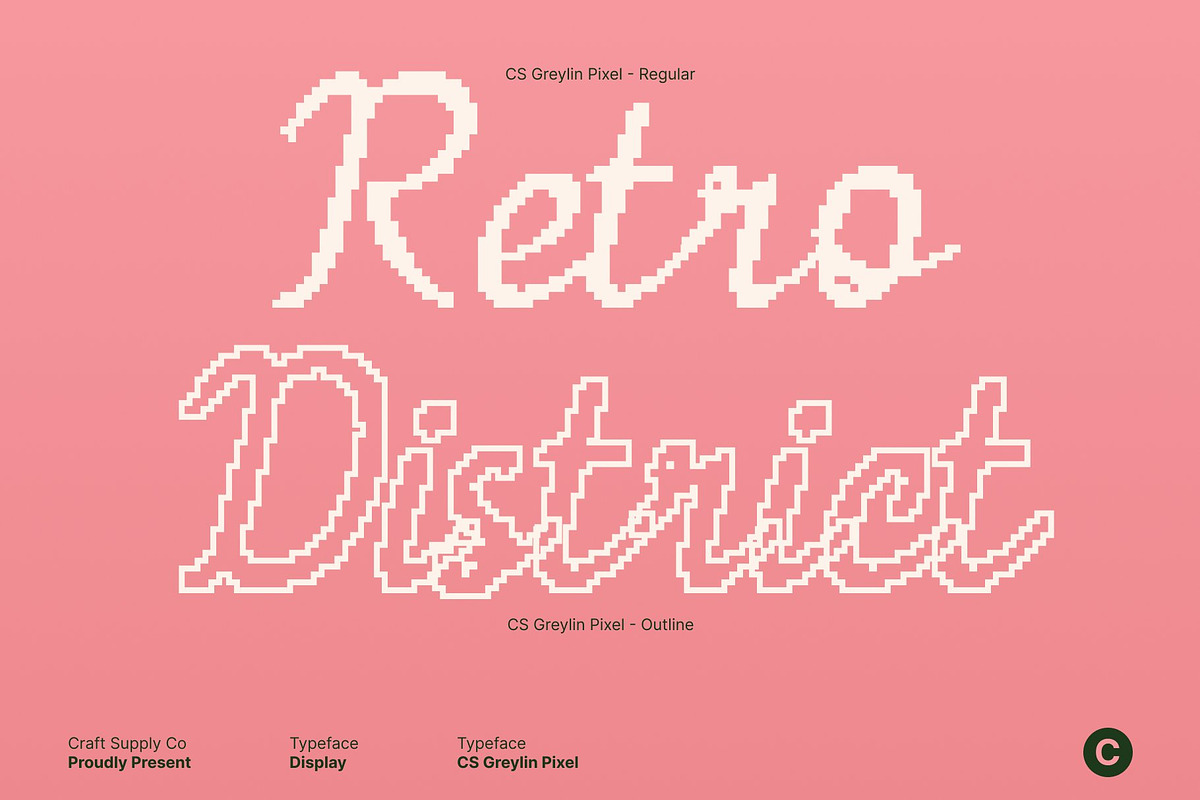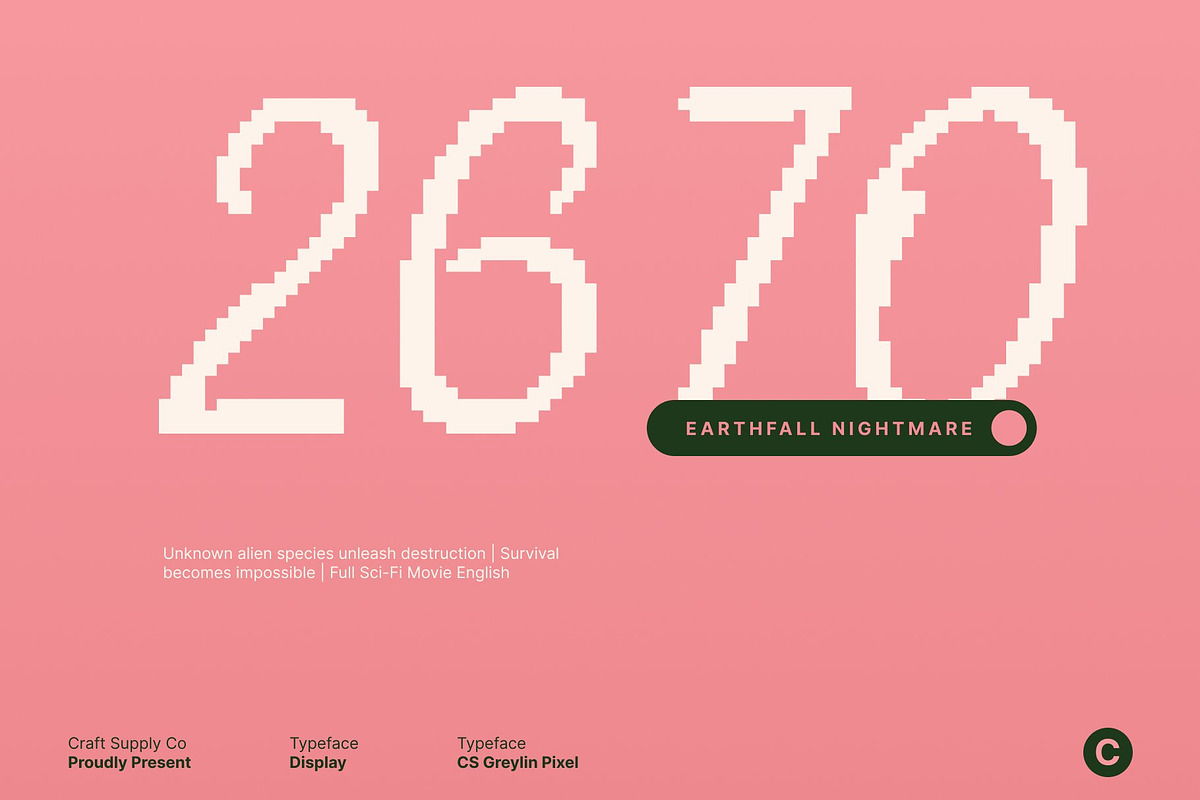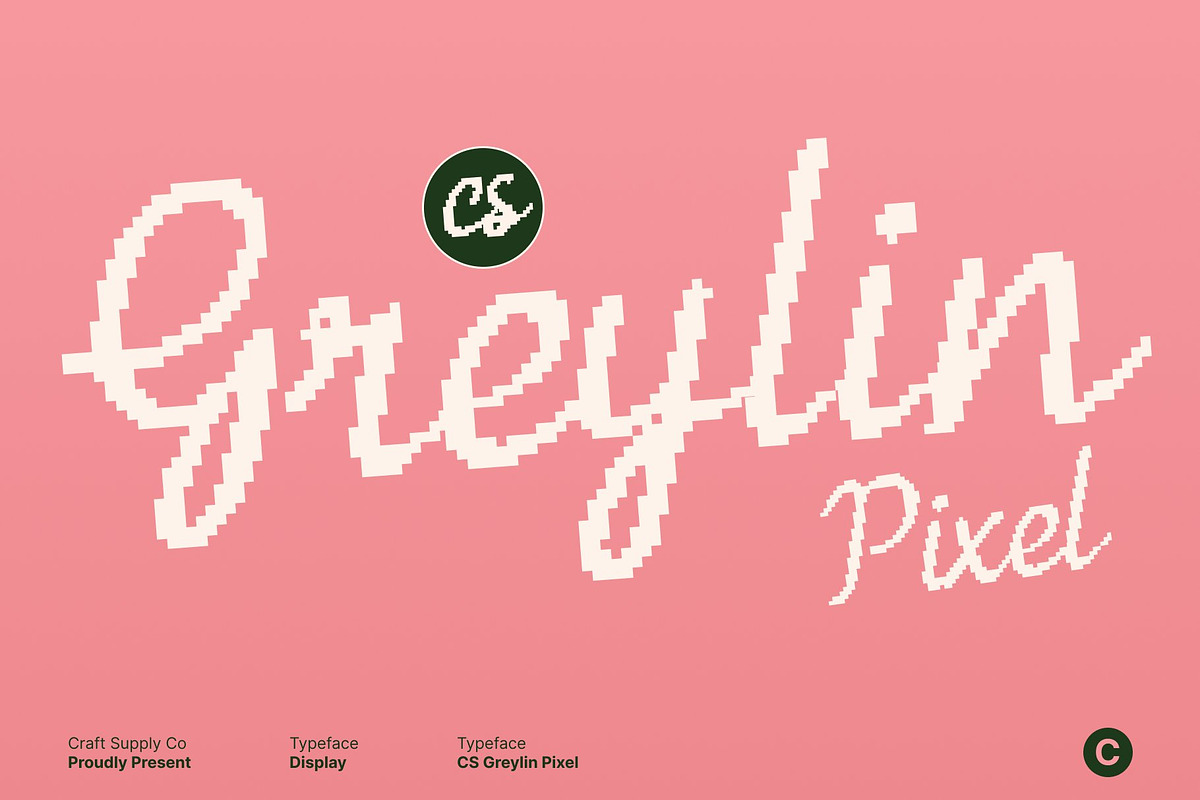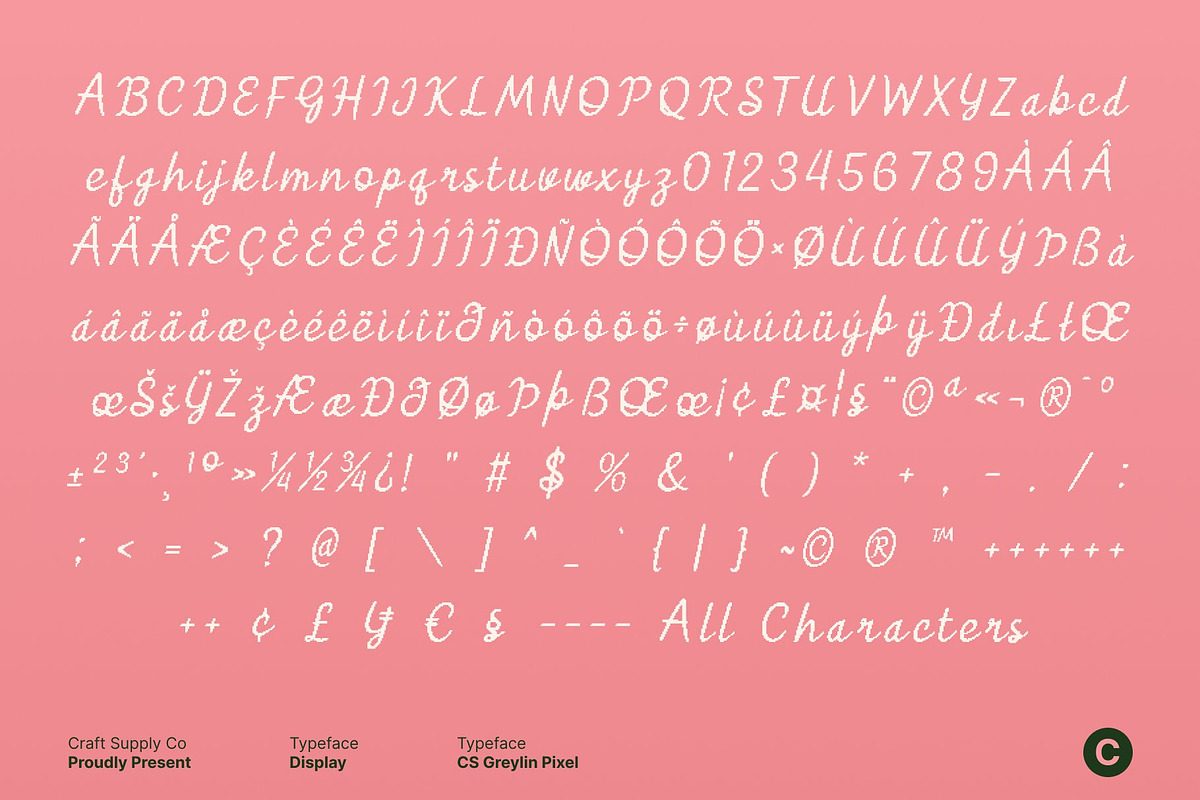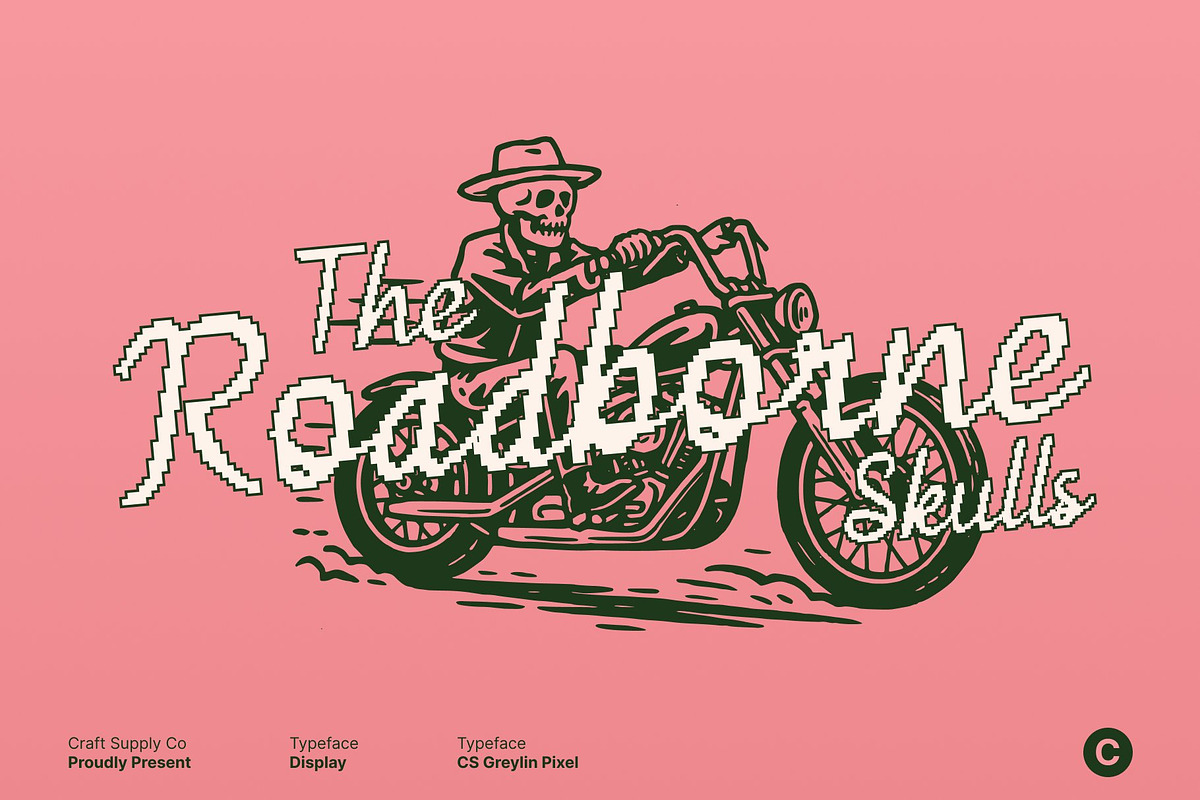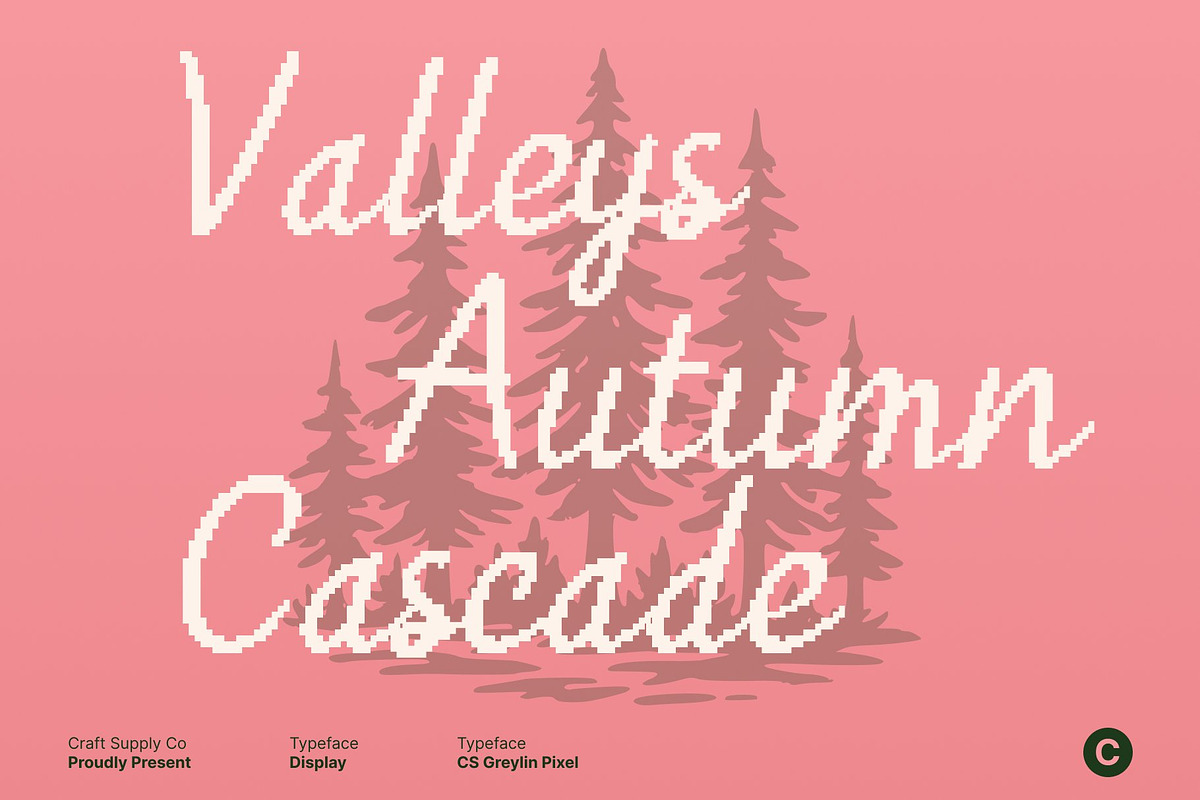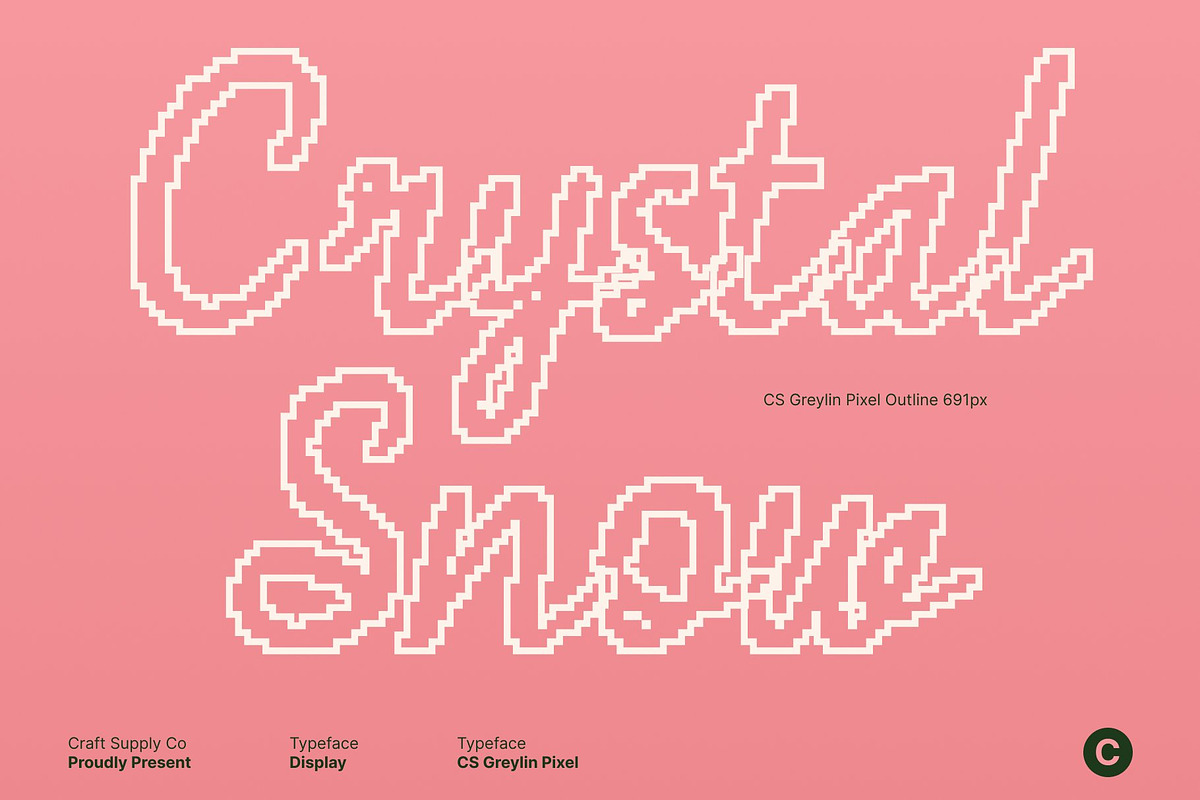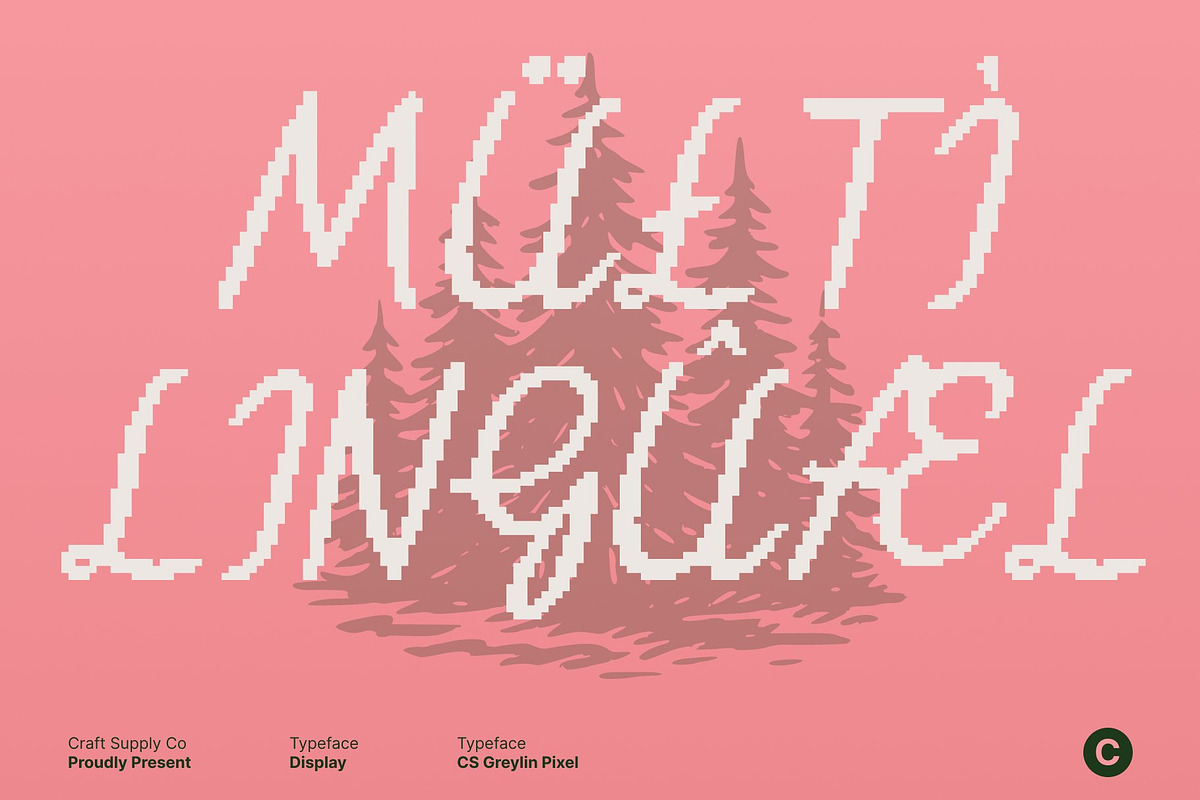
CS Greylin Pixel
CS Greylin Pixel – Elegant Script with Retro Charm and Digital Pixel Flair
Timeless Script Elegance with a Modern Twist This is a classic script font that blends graceful, flowing strokes with the sharp charisma of pixel-inspired detailing. Designed to evoke charm and nostalgia, this typeface carries the decorative flourishes and handcrafted elegance of vintage lettering. The addition of pixel texture brings an unexpected modern edge, creating a unique fusion of old-fashioned beauty and contemporary digital style.
Retro Character for Nostalgic Appeal Crafted with expressive curves and traditional script artistry, this font embraces the warmth of retro design. Its charming letterforms make it an excellent choice for bar menus, retro posters, vintage logos, café branding, and nostalgic marketing materials.
Pixelated Detailing for a Digital Sharp Look The pixel effect introduces a fresh and bold twist, transforming the soft script flow into something more modern and striking. This digital texture enhances the font’s uniqueness, giving it a sharp edge that feels distinctly contemporary. Whether used in digital layouts or printed materials, the pixel styling makes this font stand out with a refined yet daring aesthetic.
Versatile Style for Creative Expression From nostalgic branding to modern digital themes, this font adapts beautifully across creative projects. Its blend of retro charm and pixel precision offers both warmth and innovation, making it ideal for designers seeking a script font with character and versatility.
- CS Greylin Pixel Regular
- CS Greylin Pixel Outline